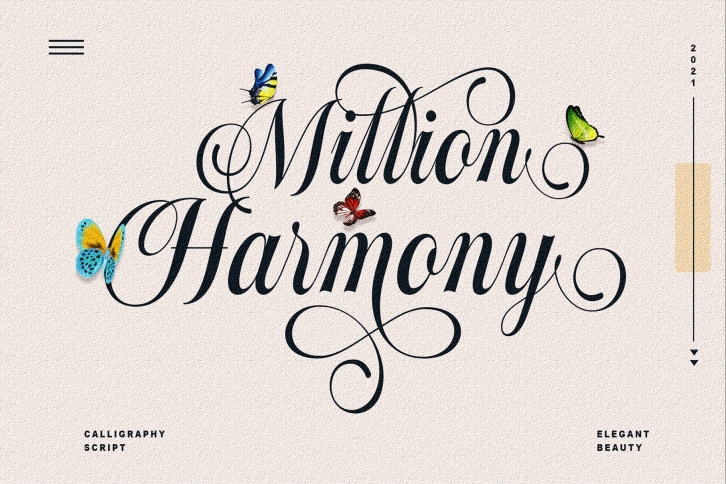
Million Harmony
Million Harmony is a Calligraphy writing font that has beautiful shapes in every letter. The Million Harmony font is perfect for a variety of projects such as logos & branding, invitations, stationery, wedding designs, social media posts, advertisements, printed quotes, product packaging, product designs, labels, photography, watermarks, special events, or anything else.